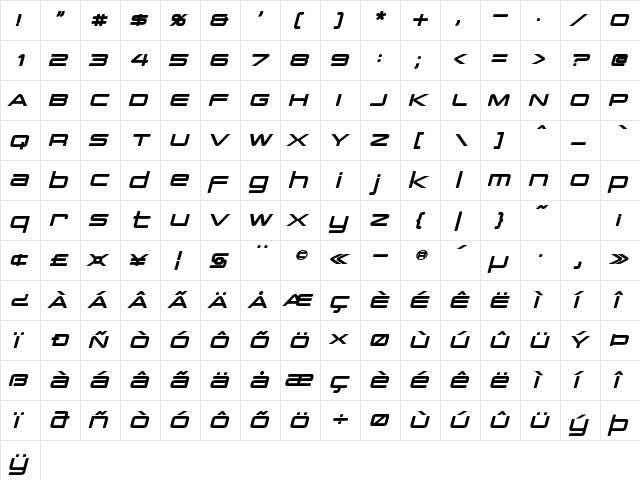
PCap Terminal Bold Italic
Design Context for PCap Terminal Typeface
PCap Terminal takes a measured approach to typography — its balanced proportions and neutral character make it a reliable workhorse for both digital and print work. Its italic angle brings a sense of urgency and motion to the letterforms. The heavy weight commands attention and anchors typographic hierarchies.
Pro Tip: Use PCap Terminal for emphasis, pull quotes, and subheadings where its slanted energy can add rhythm to the layout.